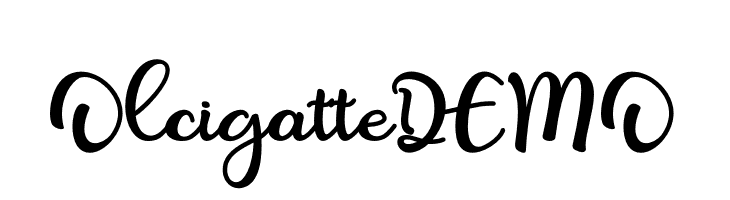
A bold, geometric font with a futuristic and modern aesthetic.
A modern, rounded font with a sleek, futuristic design and consistent bold strokes.
A sleek, modern bold italic font with rounded edges and smooth curves.
A sleek, modern italic font with smooth curves and consistent stroke width.
A modern, geometric font with rounded edges and consistent spacing.
A playful, rounded font with bold outlines and consistent character width.
A bold, geometric font with angular shapes and strong visual impact.
A bold, italic font with strong diagonal slant and thick strokes.
A playful, handwritten font with smooth curves and a casual style.
A playful, casual handwritten font with smooth, flowing curves.
A bold, playful font with a shadow effect and a handwritten style.
A bold, playful font with a shadow effect and rounded, slanted characters.
A bold, brush-stroke font with a dynamic, hand-drawn appearance.
A classic serif font with elegant strokes and subtle curves, ideal for sophisticated designs.
A bold, high-contrast serif font with elegant and expressive characteristics.
A bold, geometric font with a three-dimensional, futuristic design.
A bold, jagged font with a raw, edgy appearance.
A bold, playful font with a dynamic, comic-inspired style.
Decorative sans-serif with zigzag and stitched interior patterns.
A graceful script font with fluid, connected letters and elegant style.
A flowing, cursive script font with elegant, interconnected characters.
A bold, playful font with rounded letterforms and a cohesive design.
A whimsical, hand-drawn font with elongated, irregular letters.
A modern serif font with organic elements and playful swashes.